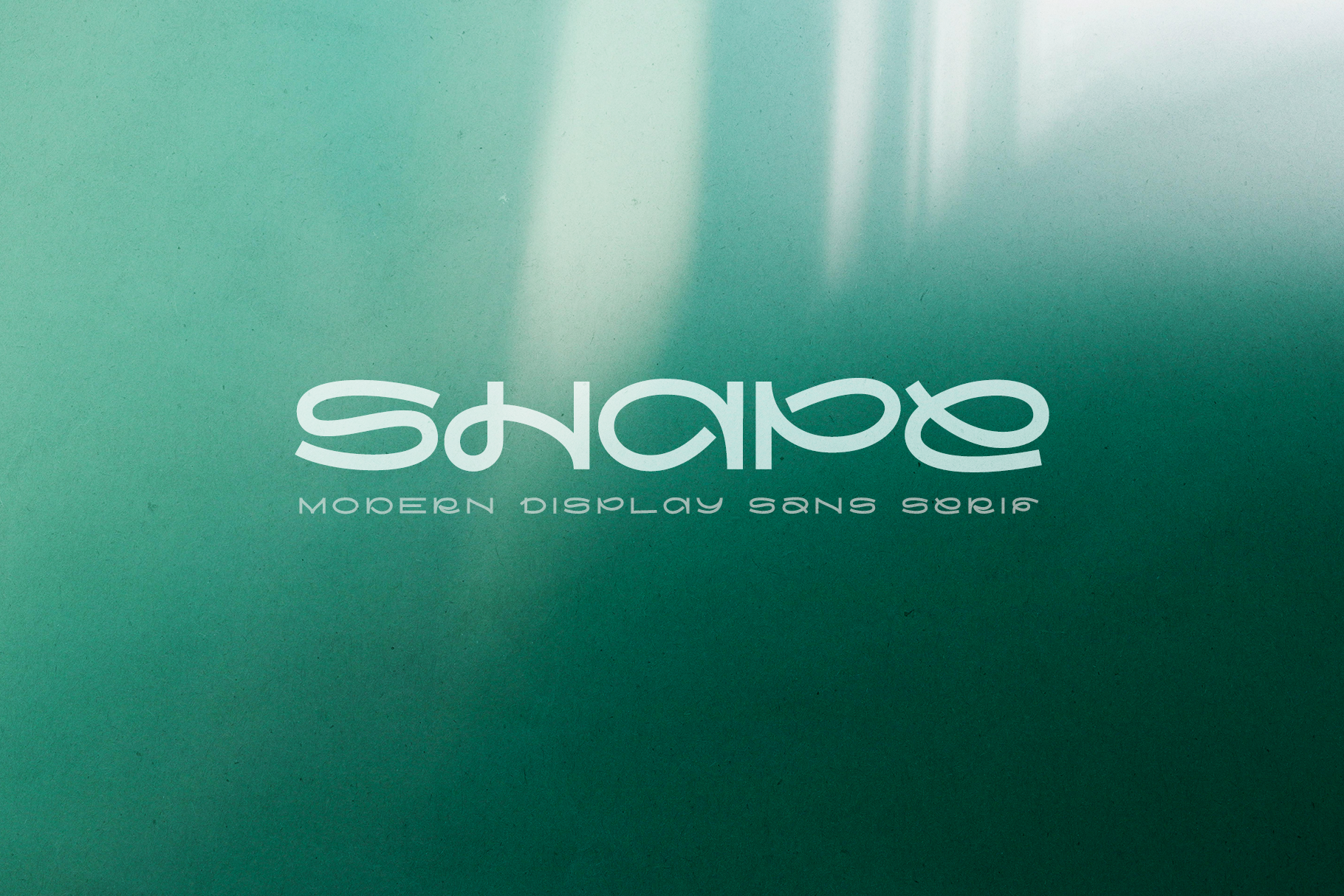
Shape Modern Display Sans Serif Font
Shape is a sleek and contemporary typeface designed to make a striking impression. Ideal for creating attention-grabbing headlines, logos, and various graphic designs, its bold and confident look enhances the visual appeal of any project. Shape Font packs a set of uppercase, numbers and punctuation.
- 160 glyphs
- Character set A-Z
- Uppercase, Numerals & Punctuation
- Latin language support
This versatile font is perfect for designers seeking to add a modern and stylish touch to their work.